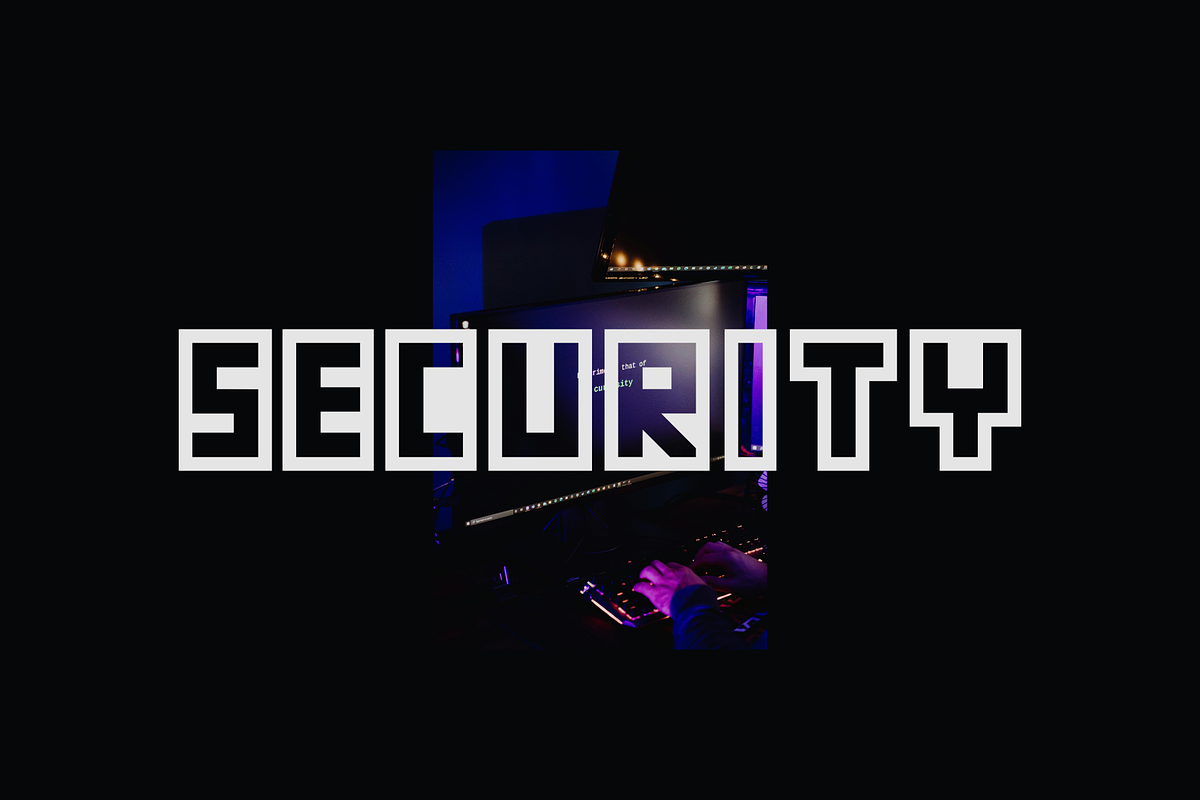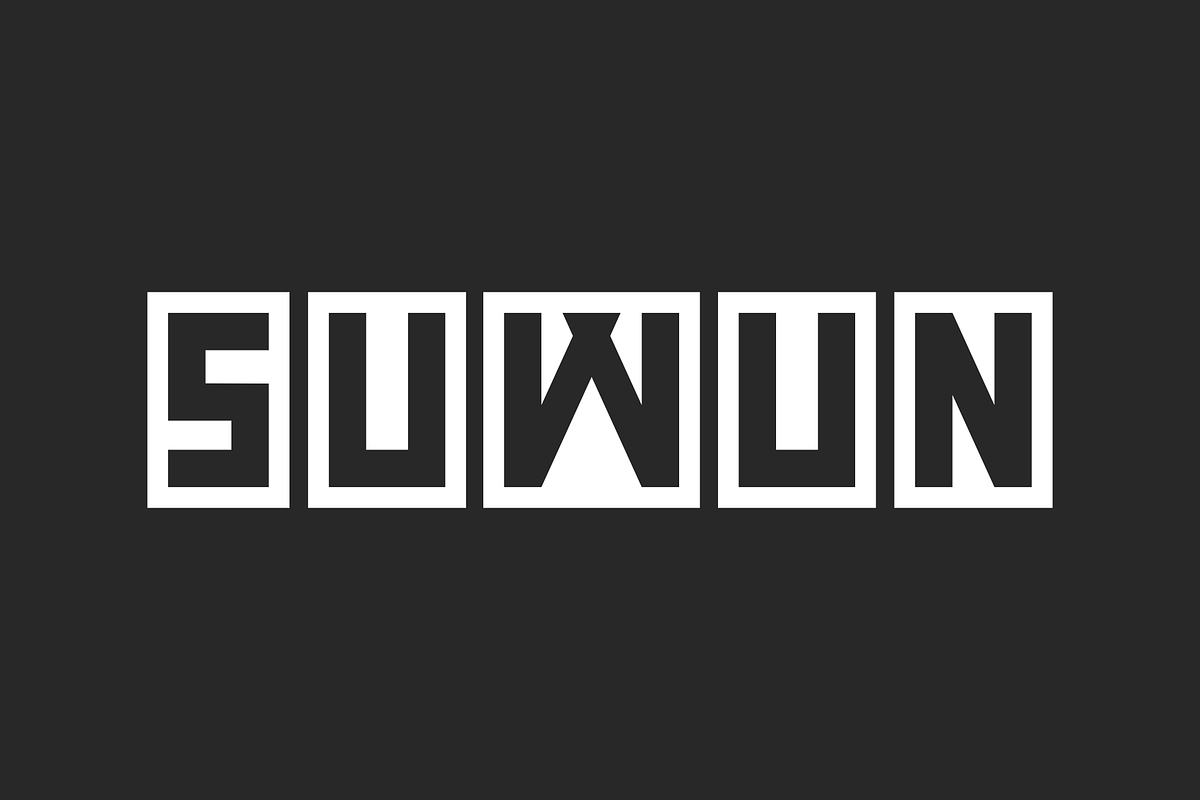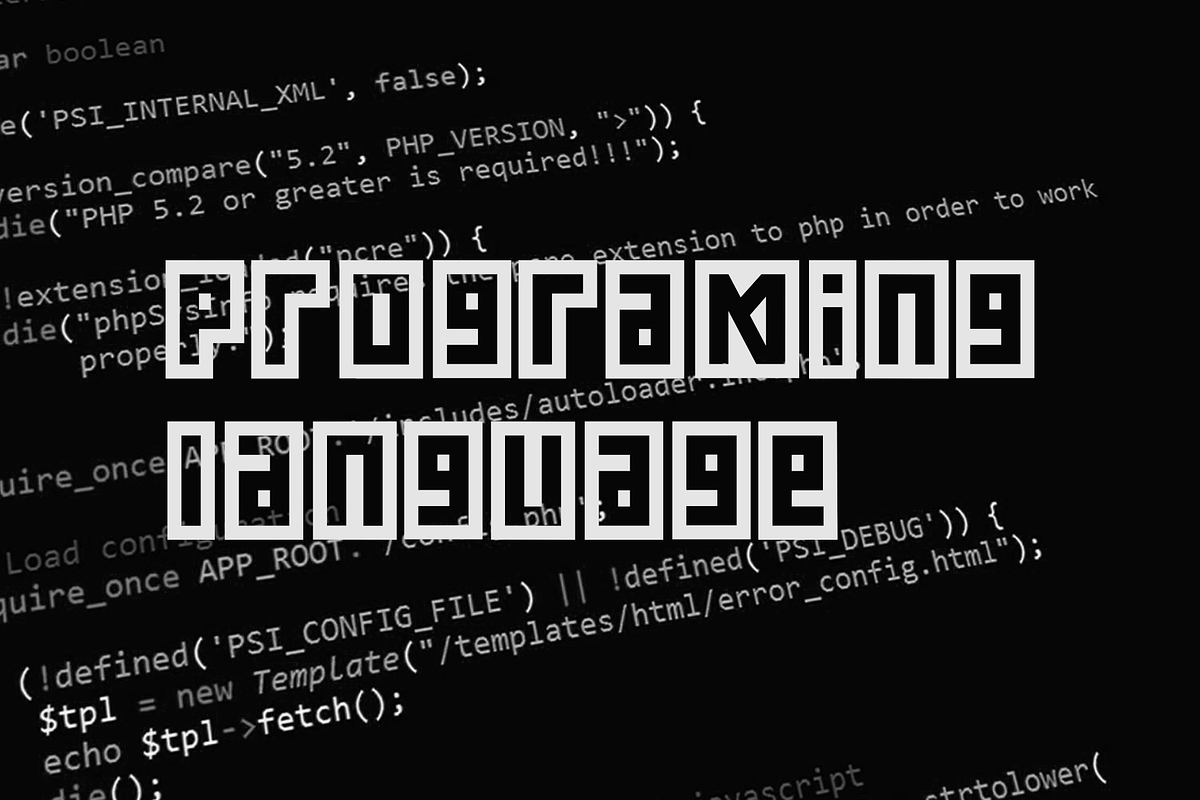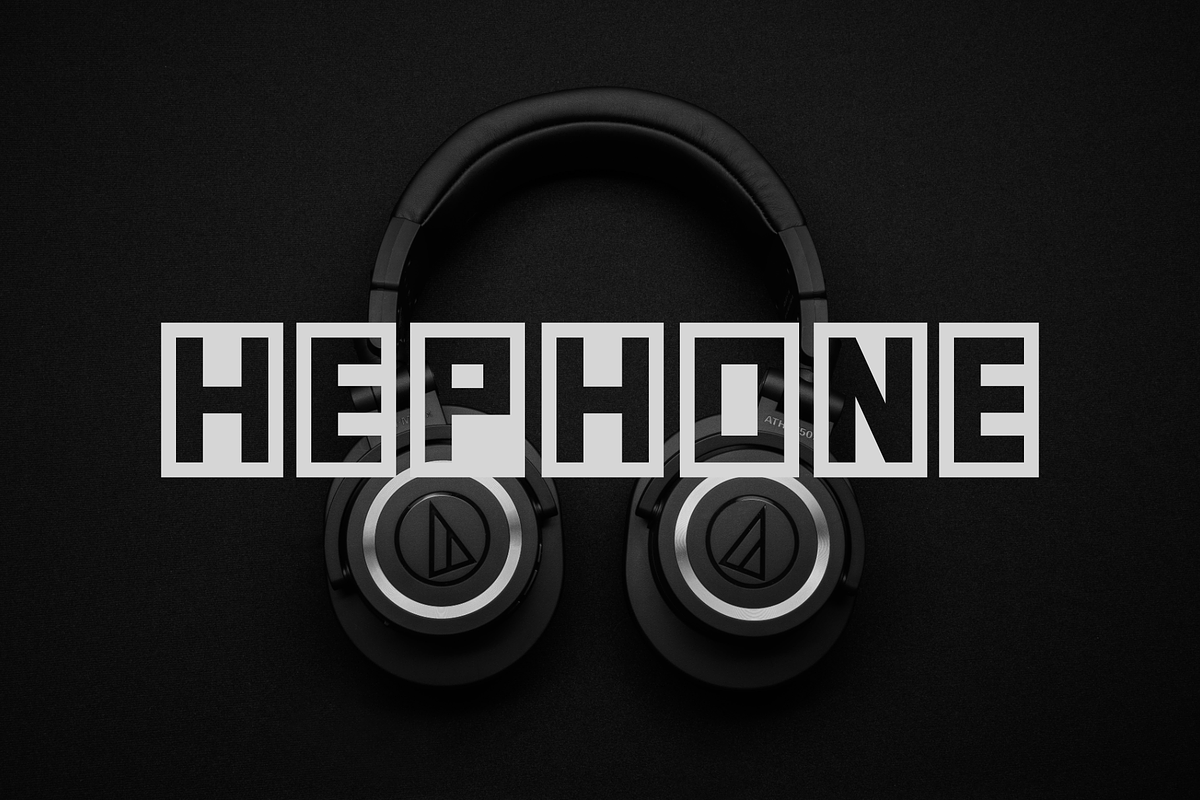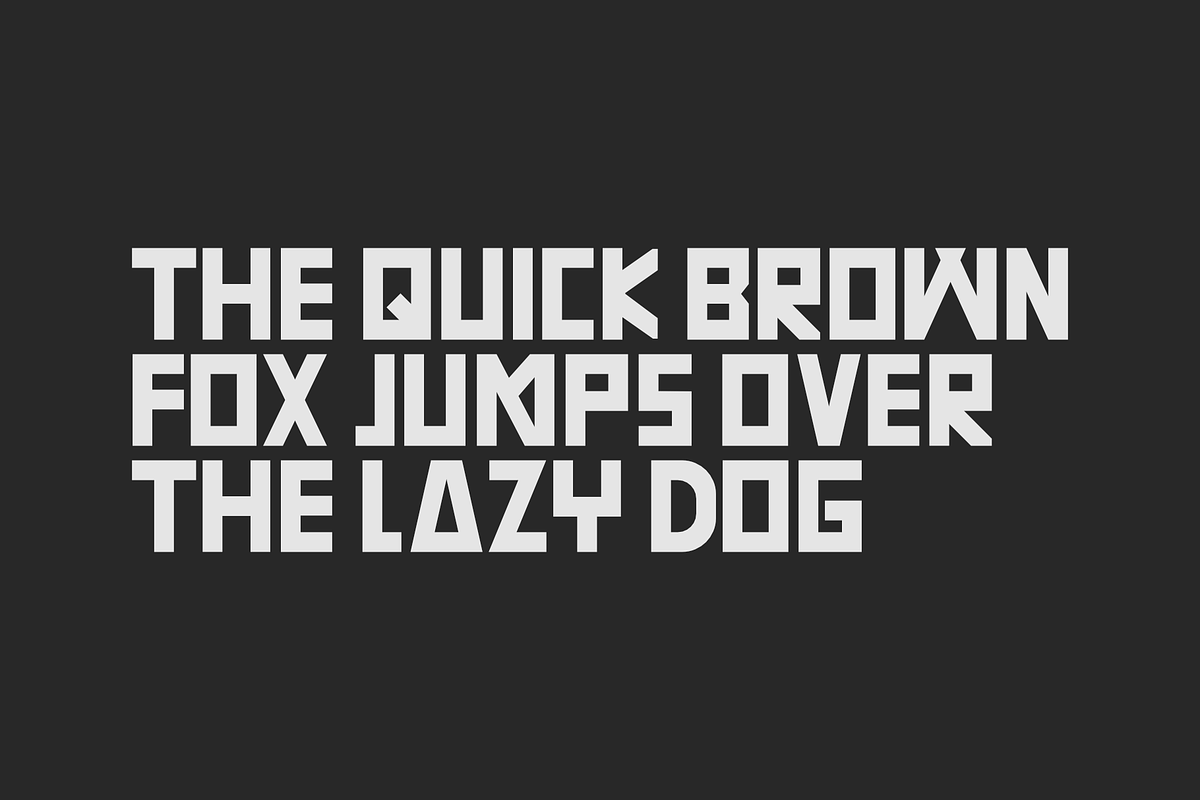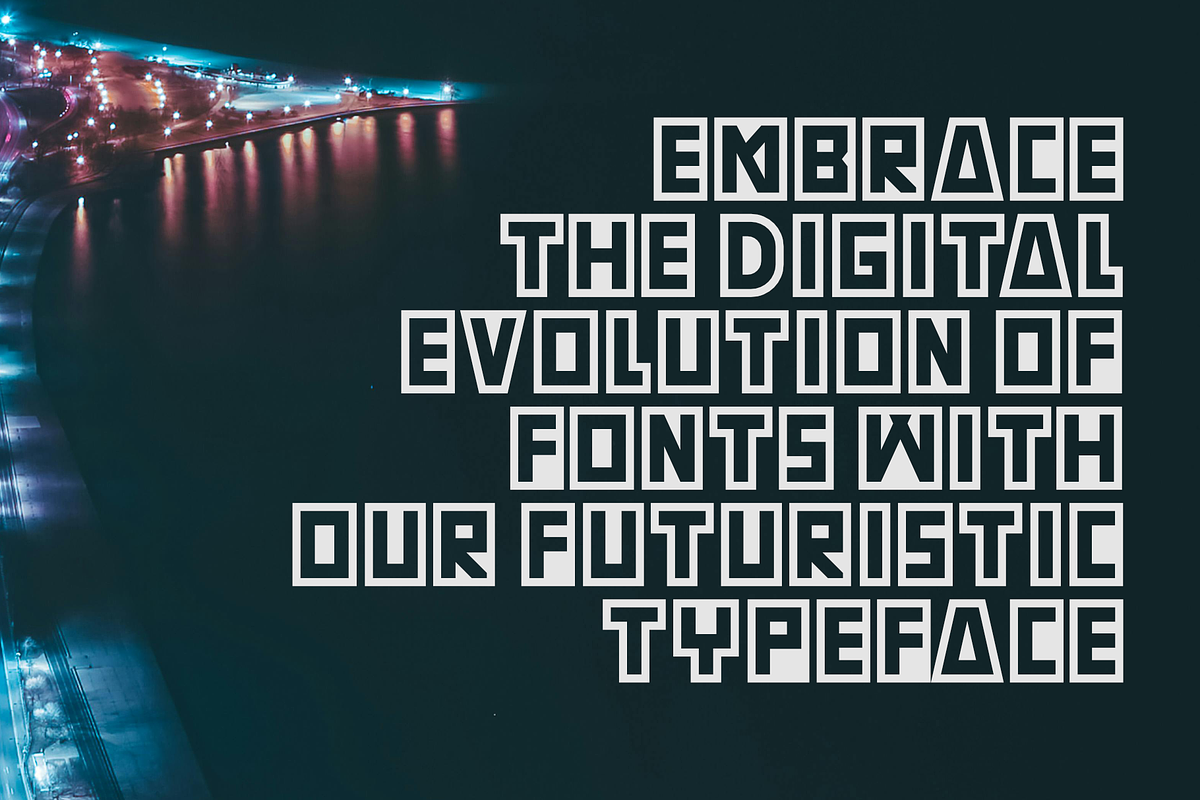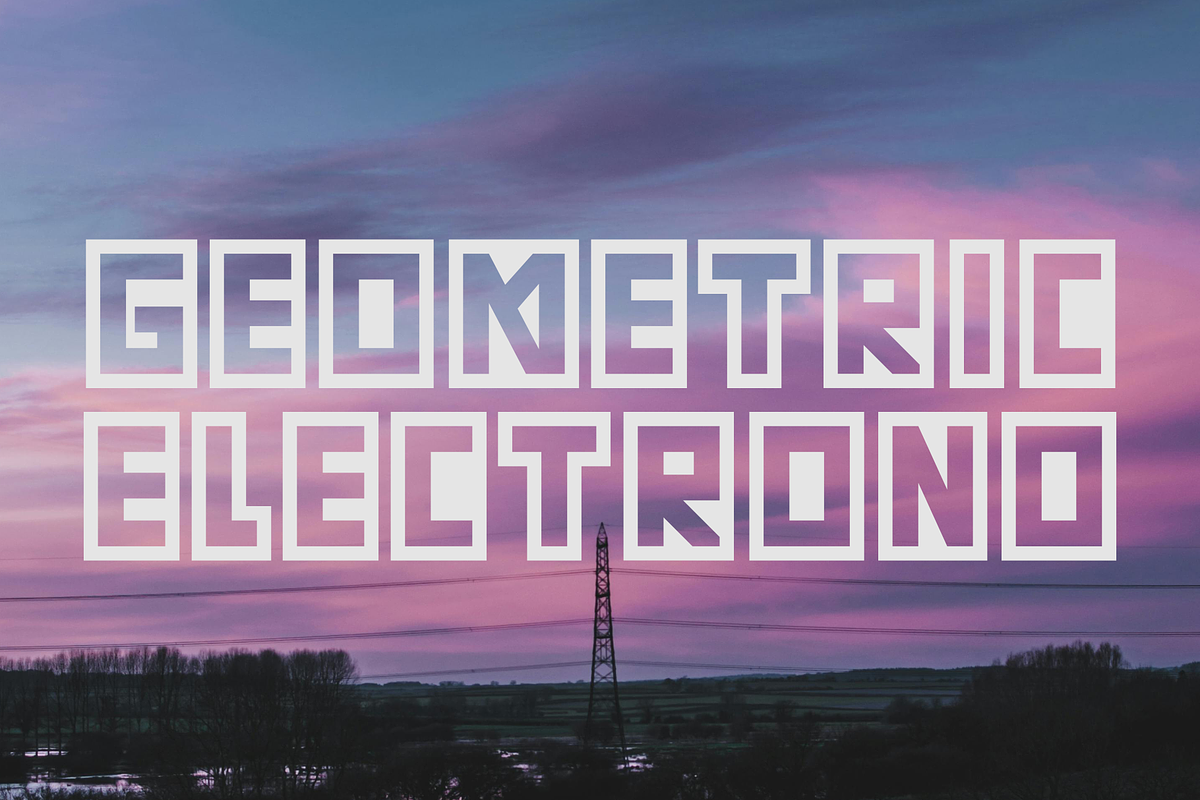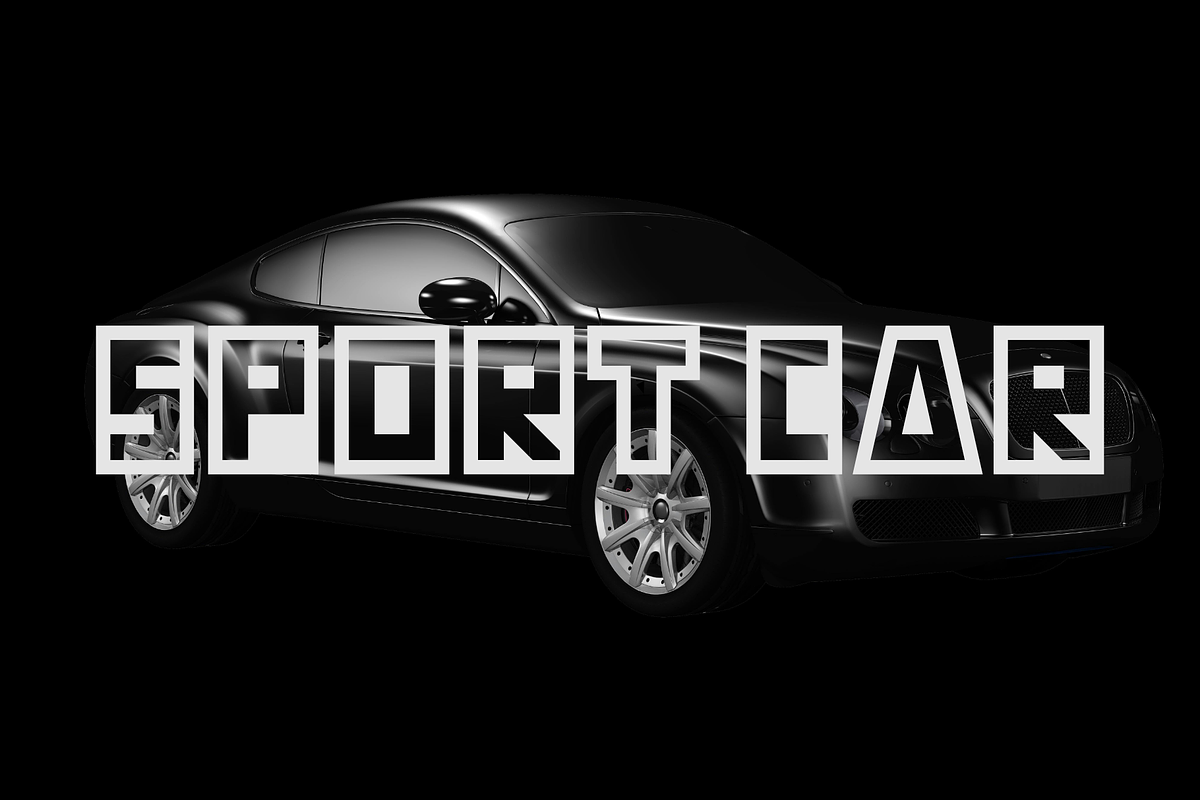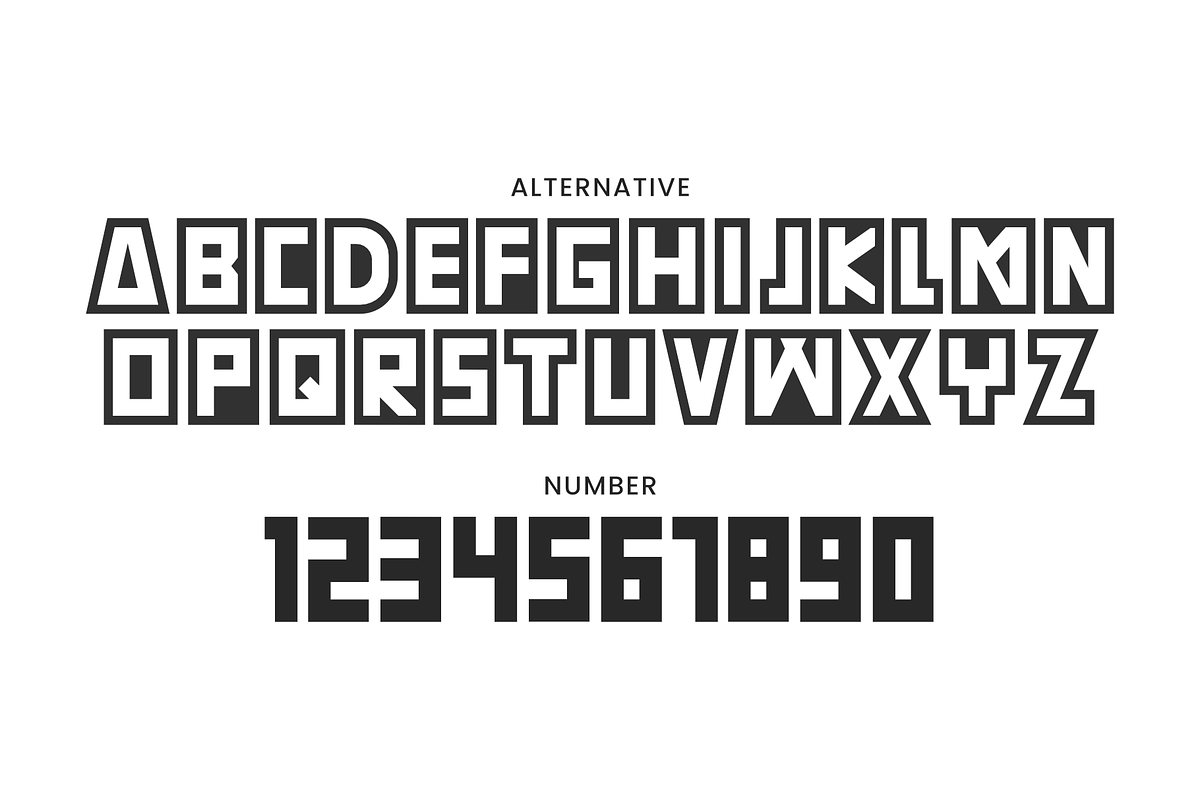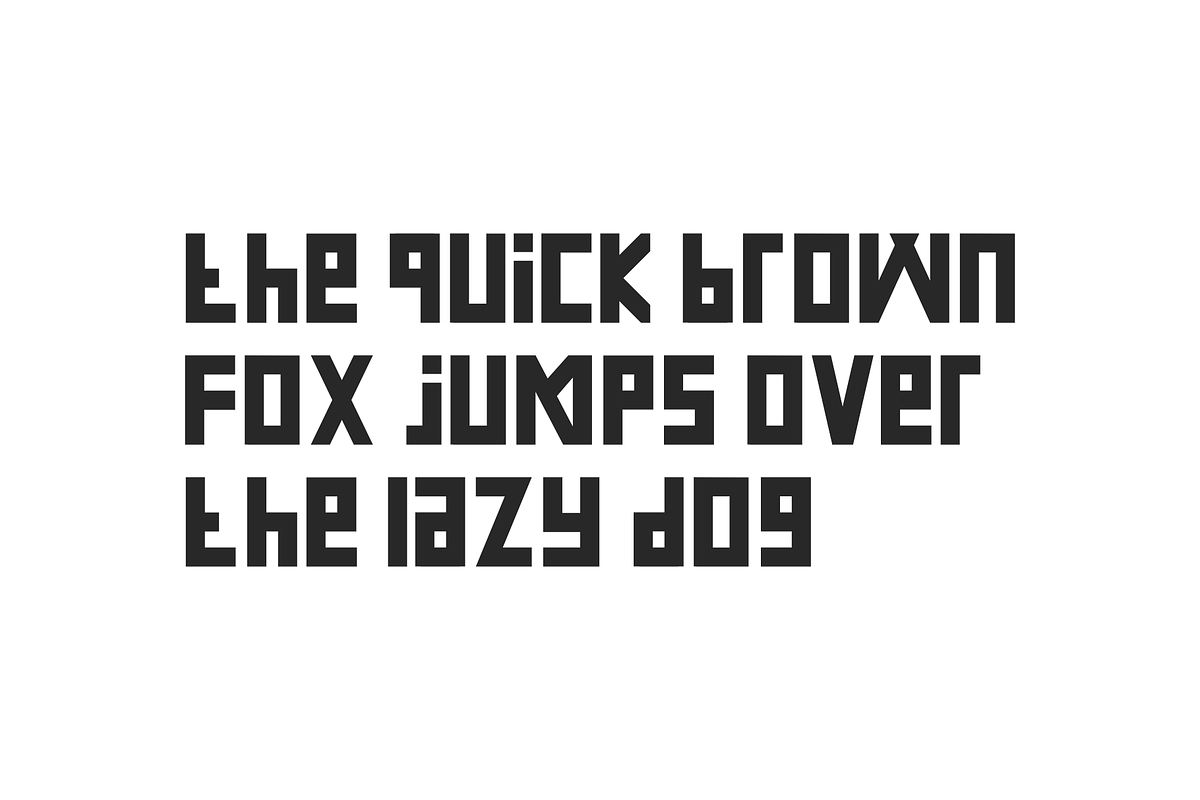
Cyberbang Geometric Sans Serif Font
Introducing Cyberbang Font.
"Introducing our cutting-edge sans-serif font, a cyberpunk-inspired masterpiece that combines boldness, modernity, and symmetrical precision. Immerse your designs in the futuristic allure of thick, dynamic characters, creating a visually striking display font that perfectly captures the essence of cyberpunk aesthetics. Elevate your projects with this avant-garde typeface, where each letter is meticulously crafted to embody the sleek, tech-driven spirit of tomorrow."